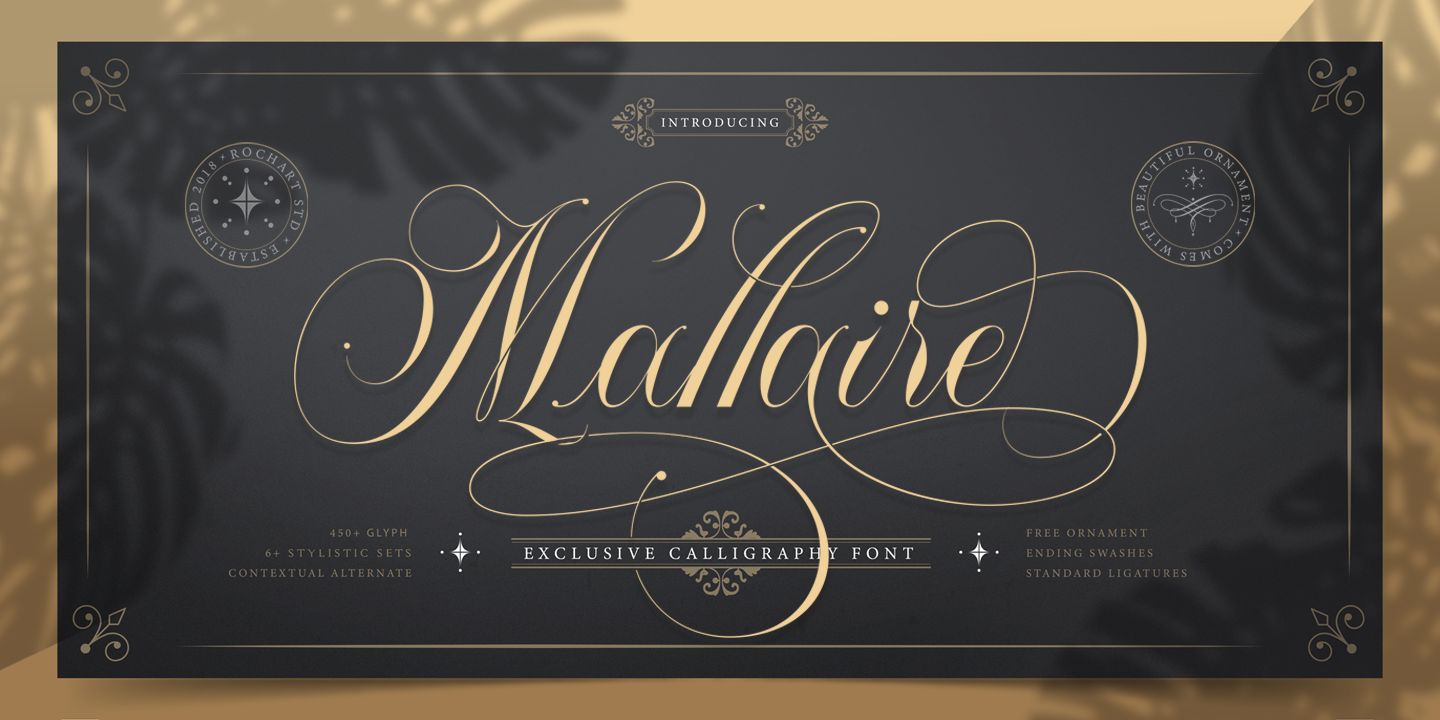
The Mallaire Font is perfect for various design applications including luxury fashion branding, high-end boutique logos, sophisticated lifestyle magazines, premium jewelry packaging, elegant event invitations, upscale beauty salon graphics, exclusive club signage, and refined personal branding materials. This distinguished typeface works exceptionally well for luxury brands and projects requiring sophisticated elegance with premium market appeal.
What makes Mallaire Font exciting is its refined and luxurious character that instantly conveys exclusivity, sophistication, and premium quality with timeless elegance. The font features graceful letterforms with luxury aesthetics and sophisticated proportions that evoke feelings of prestige, refinement, and high-end craftsmanship. Its elegant styling and premium appearance make it perfect for brands that want to establish luxury positioning and connect with discerning audiences who appreciate exceptional quality and sophisticated design.
The Mallaire Font family includes multiple weights and styles, offering designers flexibility for diverse luxury applications. The family typically consists of regular, bold, light, and italic variations, along with elegant decorative elements and premium ornaments, providing comprehensive coverage for projects that need both sophistication and visual impact across different luxury contexts.
Whether you're working on luxury retail brands, high-end service providers, or premium lifestyle campaigns, Mallaire Font Free Download delivers the sophisticated quality and visual elegance that modern luxury designers demand. The font's premium-inspired design combined with its excellent readability makes it an essential tool for creating compelling visual communications that embody luxury excellence and bring the refined spirit of sophisticated elegance to life.